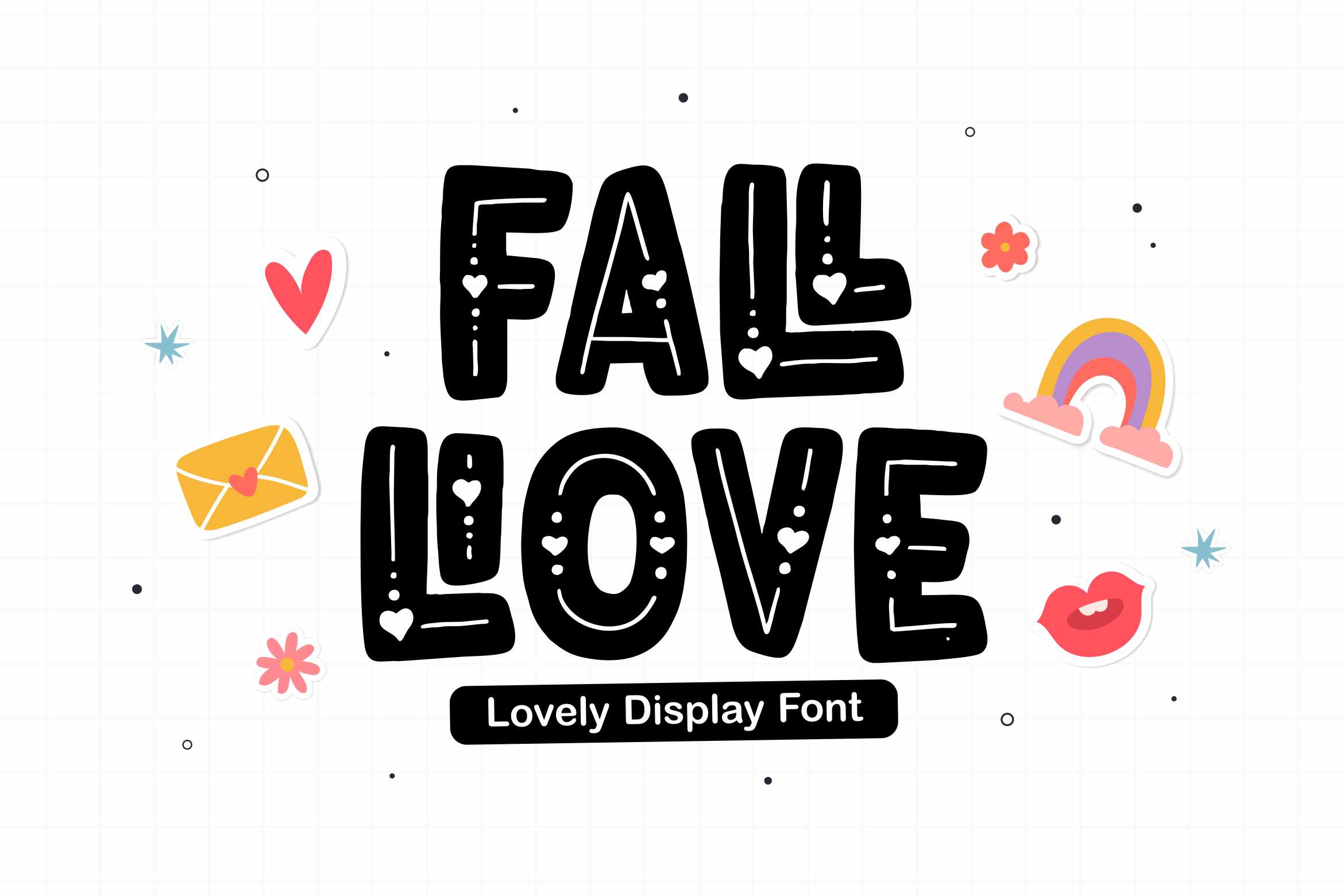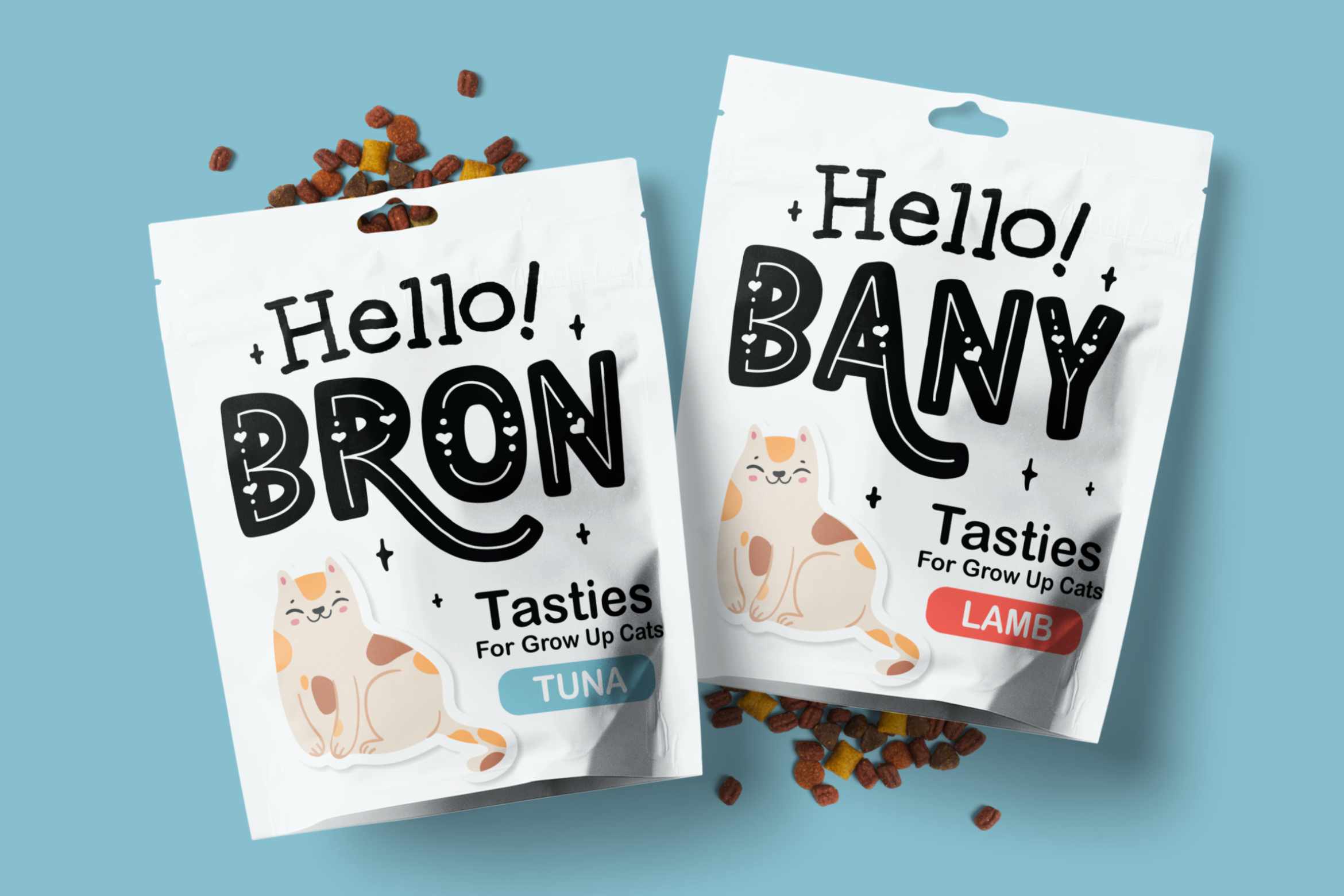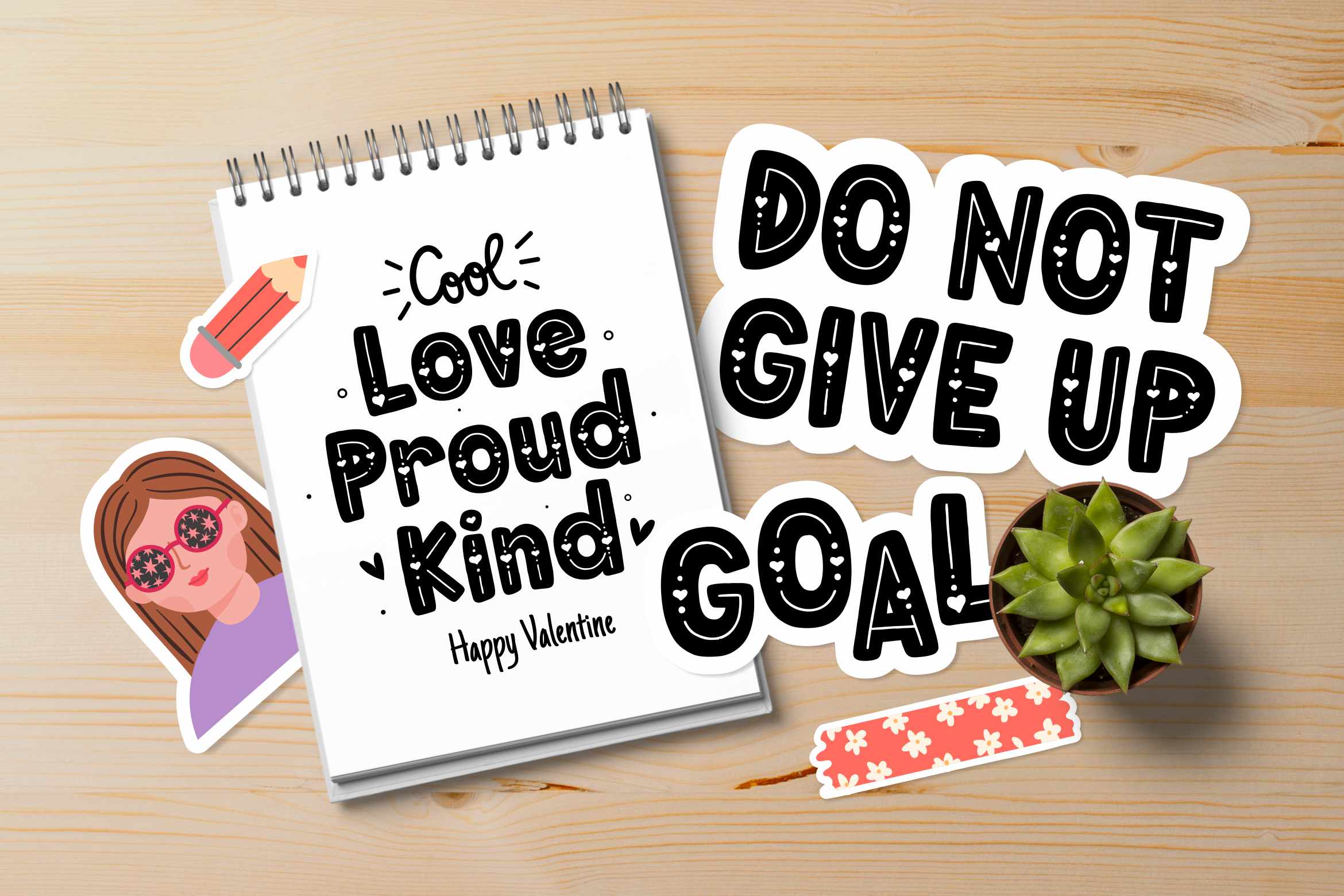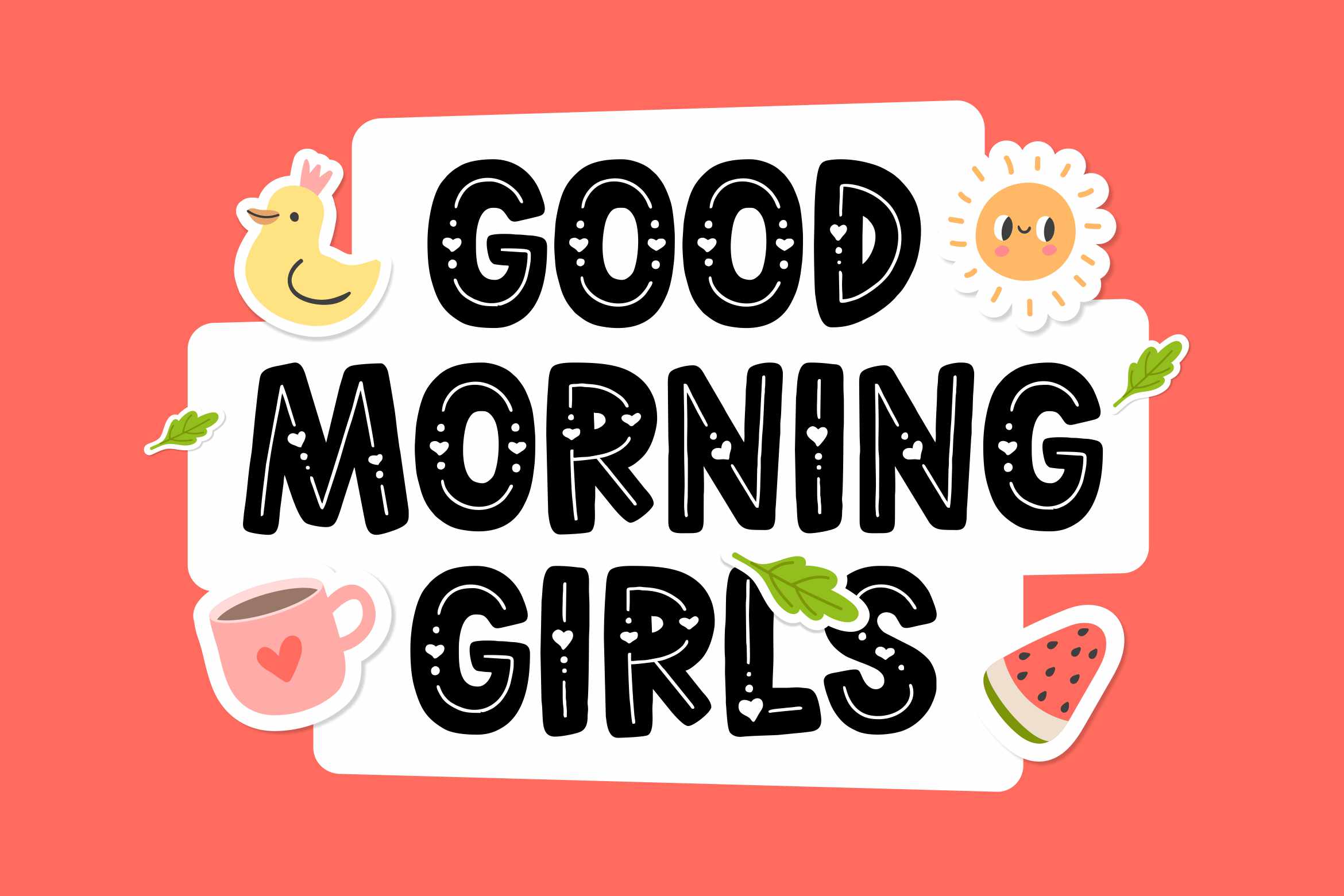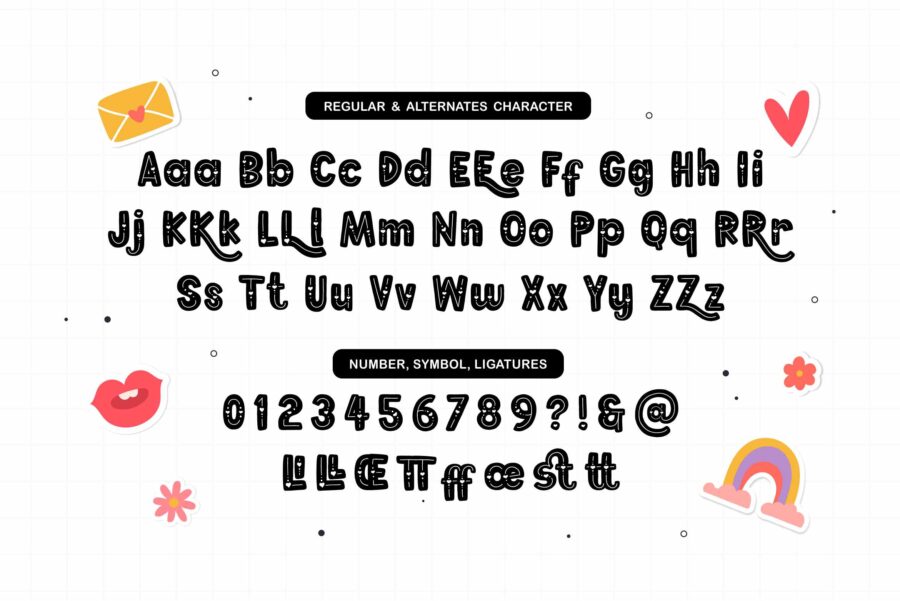
Fall Liove is a playful and charming display font filled with joy and affection. Each letter is adorned with cute heart-shaped cutouts, making it perfect for romantic themes, Valentine’s Day designs, wedding stationery, or any project that needs a touch of sweetness. Its bold yet friendly style makes your text stand out while radiating warmth and positivity.
This font includes uppercase and lowercase letters, alternates, ligatures, numbers, and punctuation. All crafted to add variety and flair to your design. Whether you’re creating stickers, greeting cards, product packaging, or children’s content, Fall Liove delivers a delightful and heartwarming experience that sparks smiles and good vibes.
Fall Liove